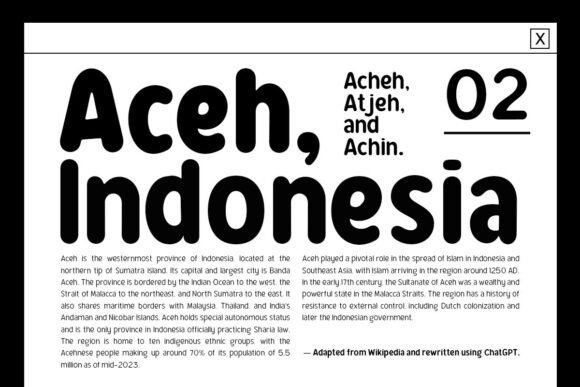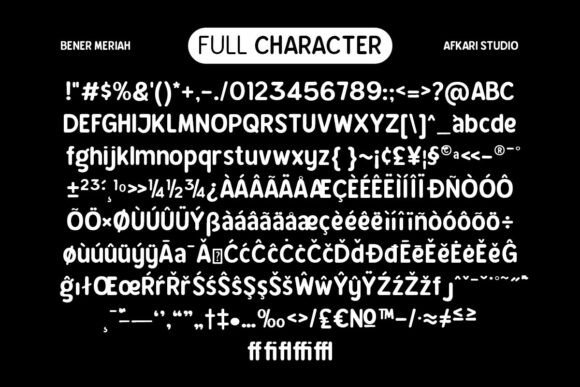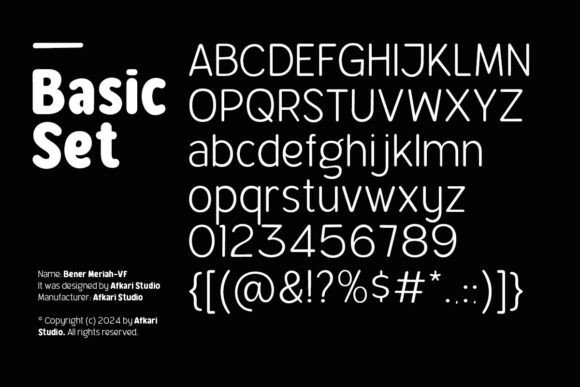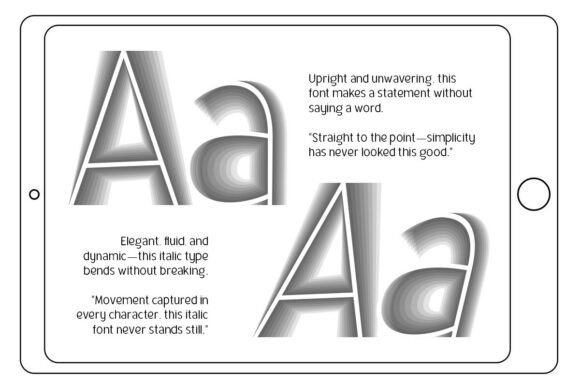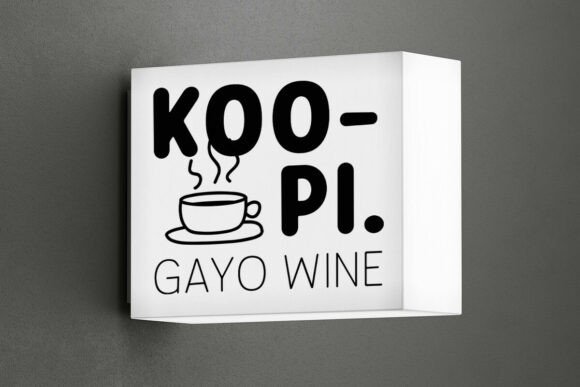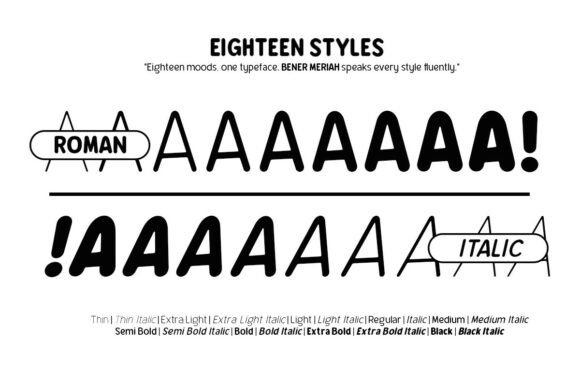
Bener Rounded Font – Free Download
Introduction to Bener Rounded Font
Bener Rounded is a rounded sans serif display font family designed to bring warmth, clarity, and modern charm to your designs.
| 👤 Author | afkaristudio |
With smooth curves and soft terminals, this typeface balances playful friendliness with professional readability, making it perfect for both creative and commercial projects Built as a font family, Bener Rounded offers flexible weights that adapt effortlessly to branding, UI design, packaging, editorial layouts, and digital content.
Key Features of Bener Rounded Font
Bener Rounded Font offers exceptional quality and versatility, making it a valuable addition to your design toolkit. Whether you’re creating for personal projects or commercial use, Bener Rounded Font delivers professional results.